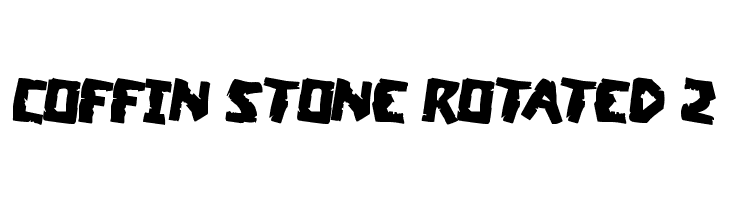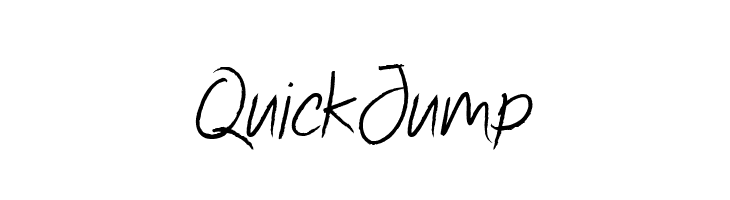
A dynamic, handwritten font with fluid, expressive strokes.
A playful and elegant script font with flowing, interconnected letters.
A bold, textured brushstroke font with an energetic and chaotic style.
A playful and elegant script font with decorative swirls and a handwritten style.
A dynamic, handwritten-style font with an italicized, modern look.
A bold, rugged font with a distressed, grunge-like appearance.
A dynamic italic font with a brush-like texture and expressive strokes.
A pixelated, geometric font with a retro digital aesthetic.
Playful handwritten decorative font.
A bold icon set font with business and finance pictograms.